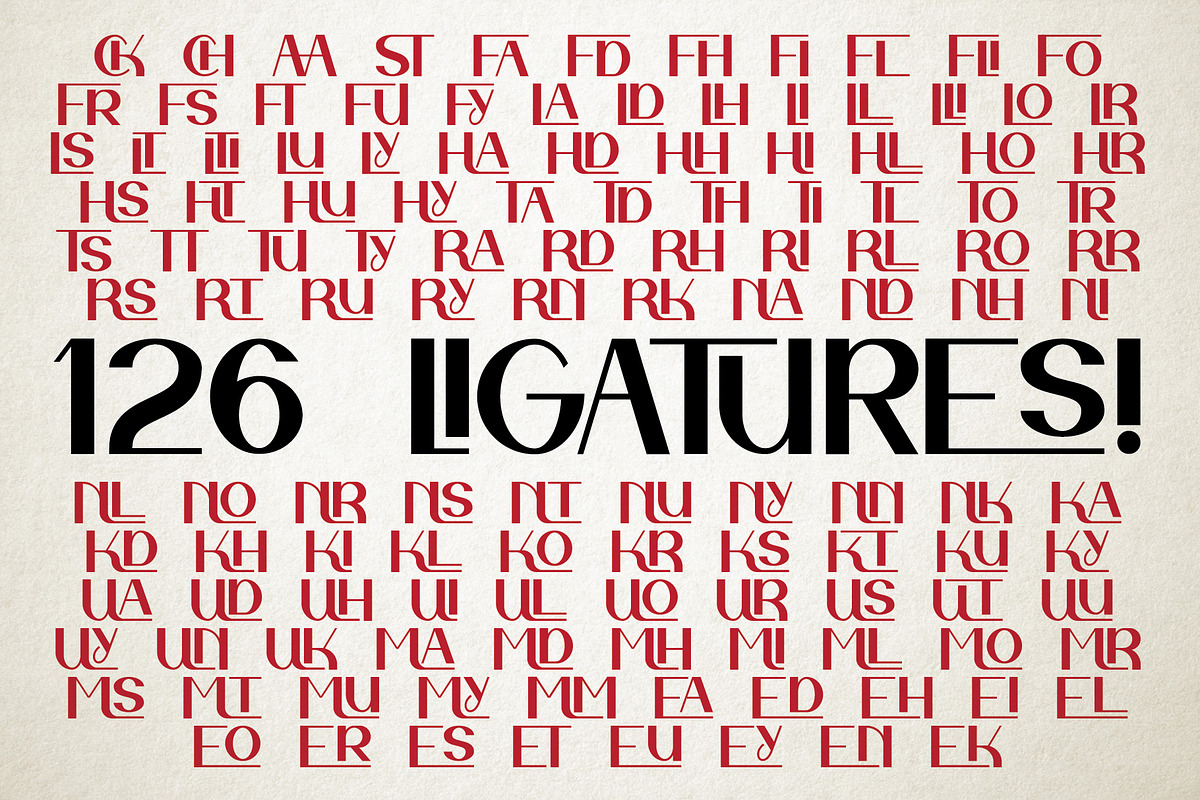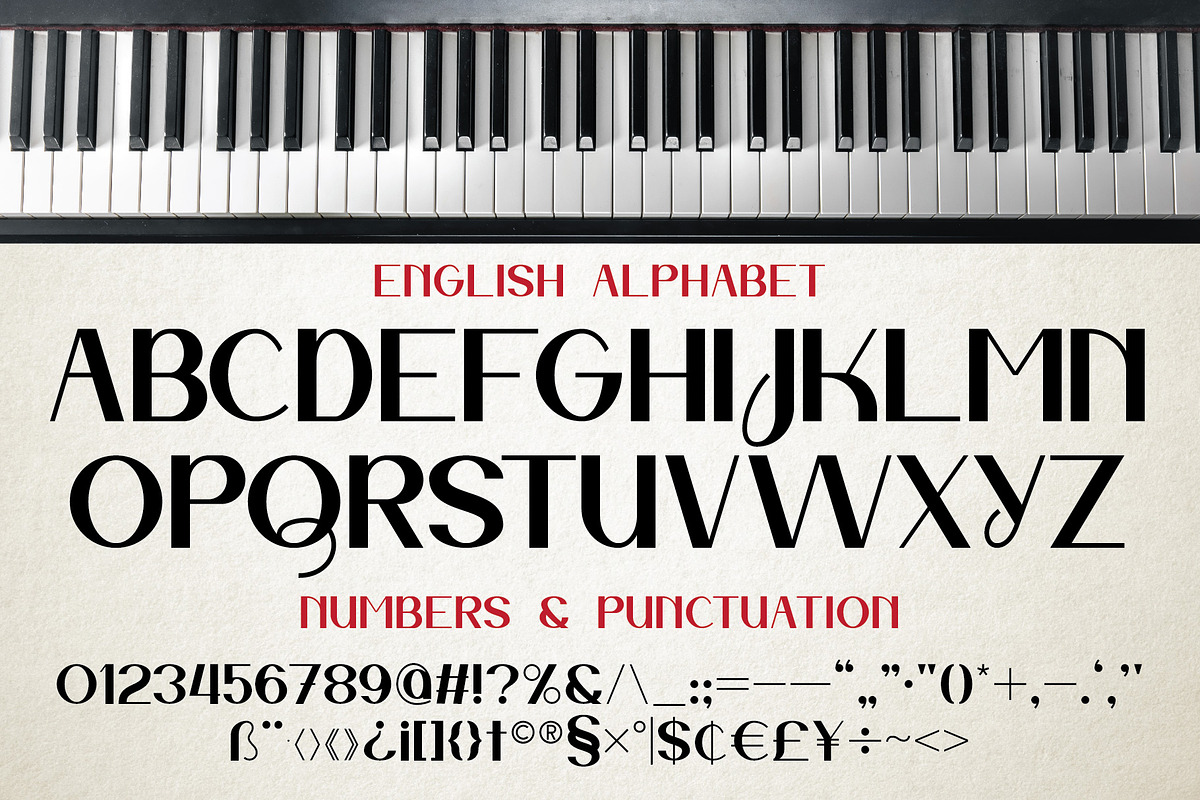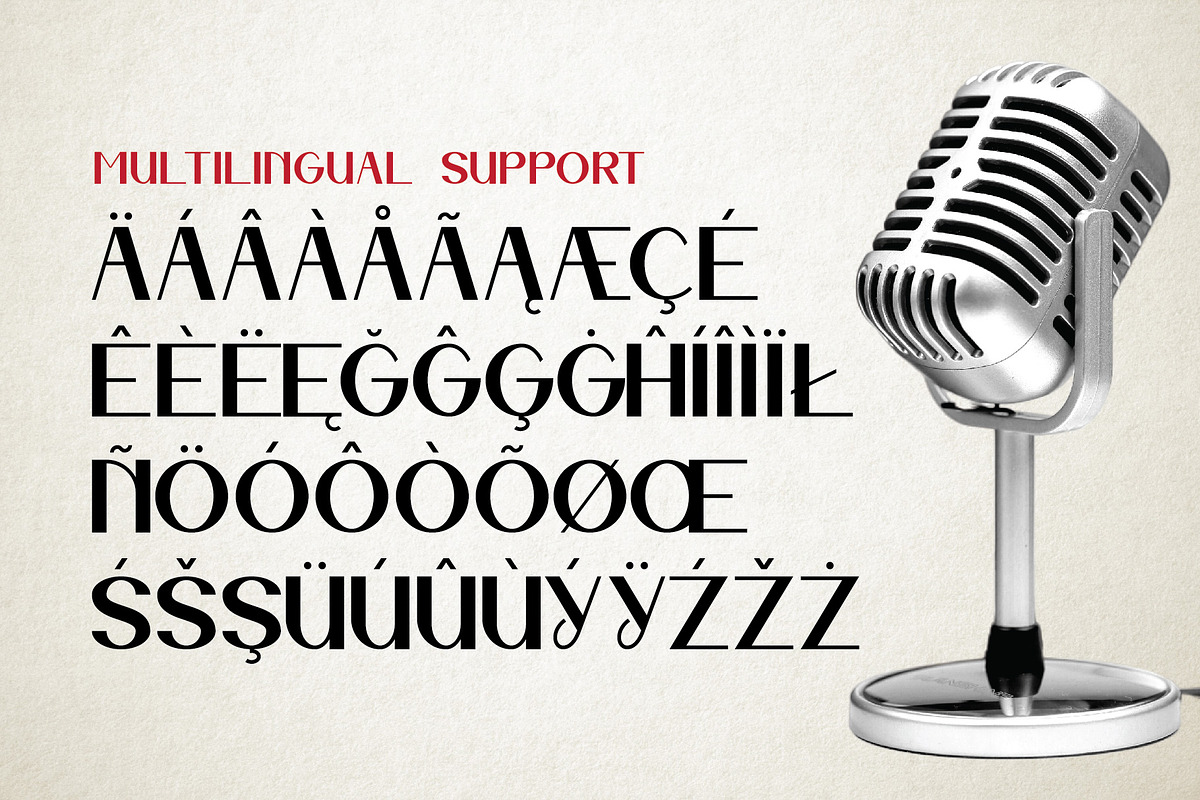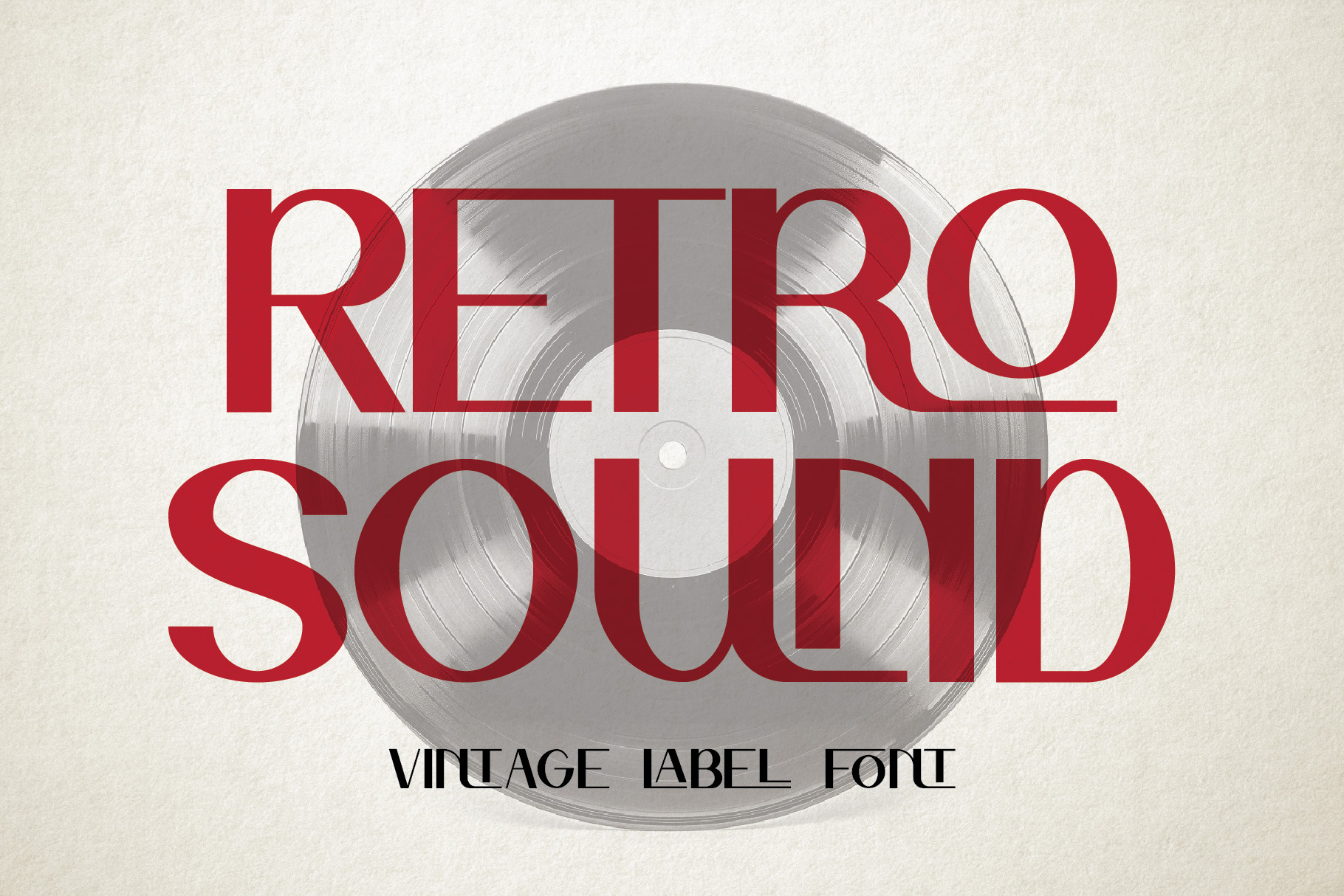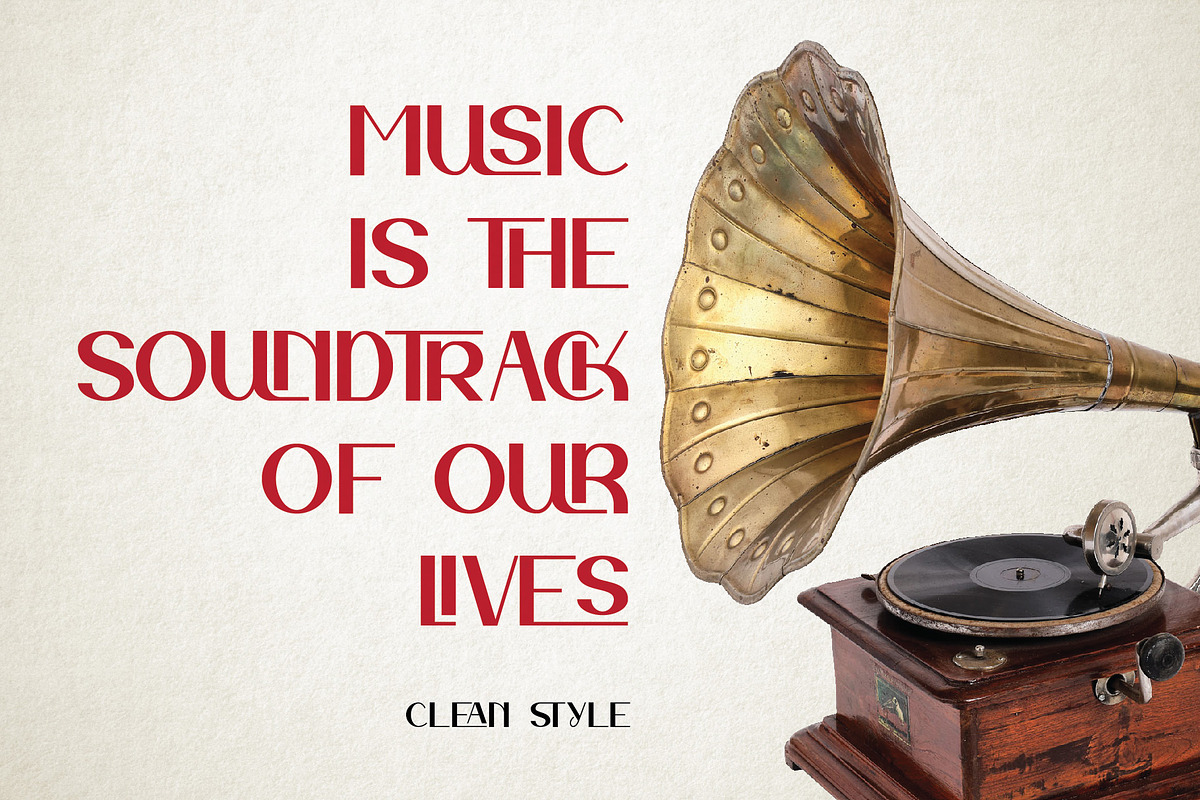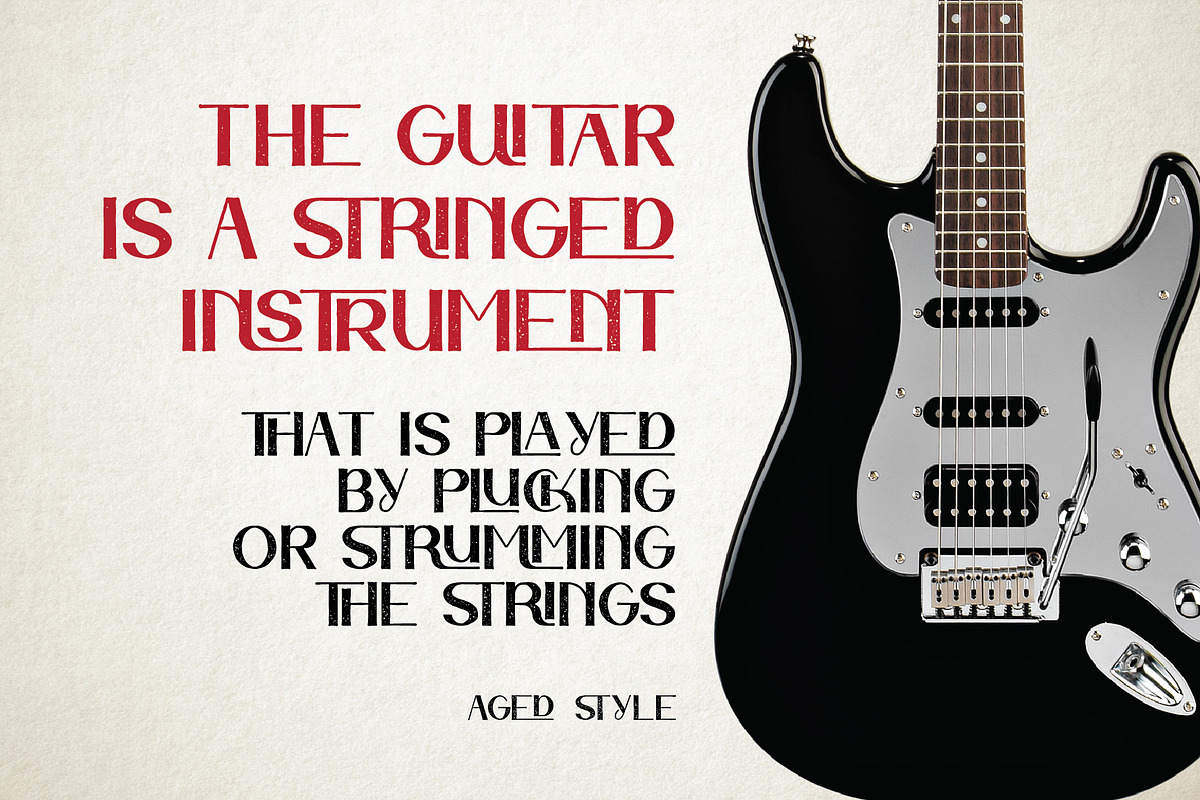
Retro Sound Ligature Label Font
Unique, clean, retro, sharp, ligature, monogram & label sans serif font. Comes with multilingual support & 126 ligatures - great for your new logo, monogram or branding project.
- Multilingual support & 126 ligatures
- Great for your new logo, monogram or branding project